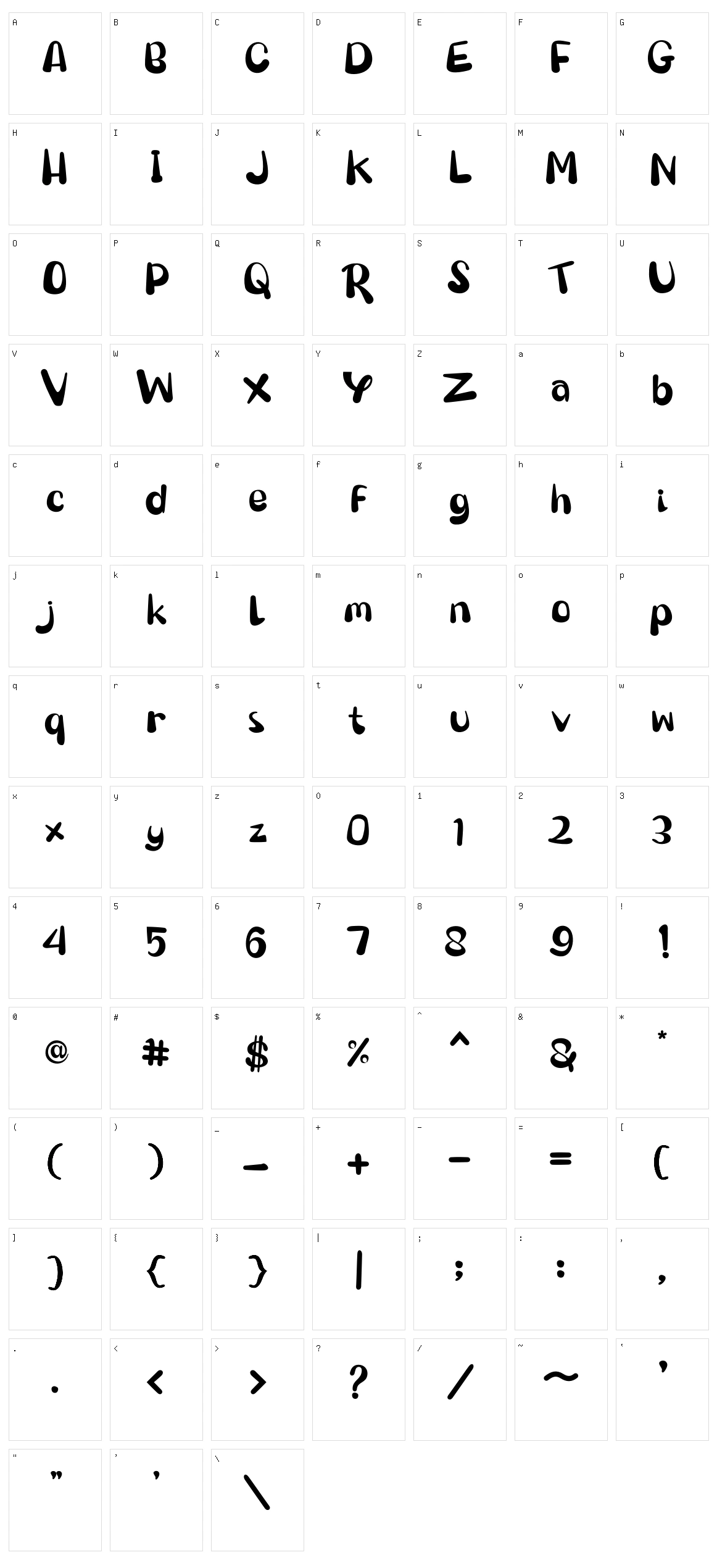
The free font My Honey Loly is carefully designed by lolisfresh, showcasing a thoughtful balance of creativity and usability and falls under the Cartoon font style. When you download the ZIP file, it contains only 12.41 KB of font files, making it lightweight and quick to download. Please review the license details below to understand permitted usage and distribution rights. If license information is not available, we recommend using this font for personal projects only or contacting the author directly for commercial usage permissions.